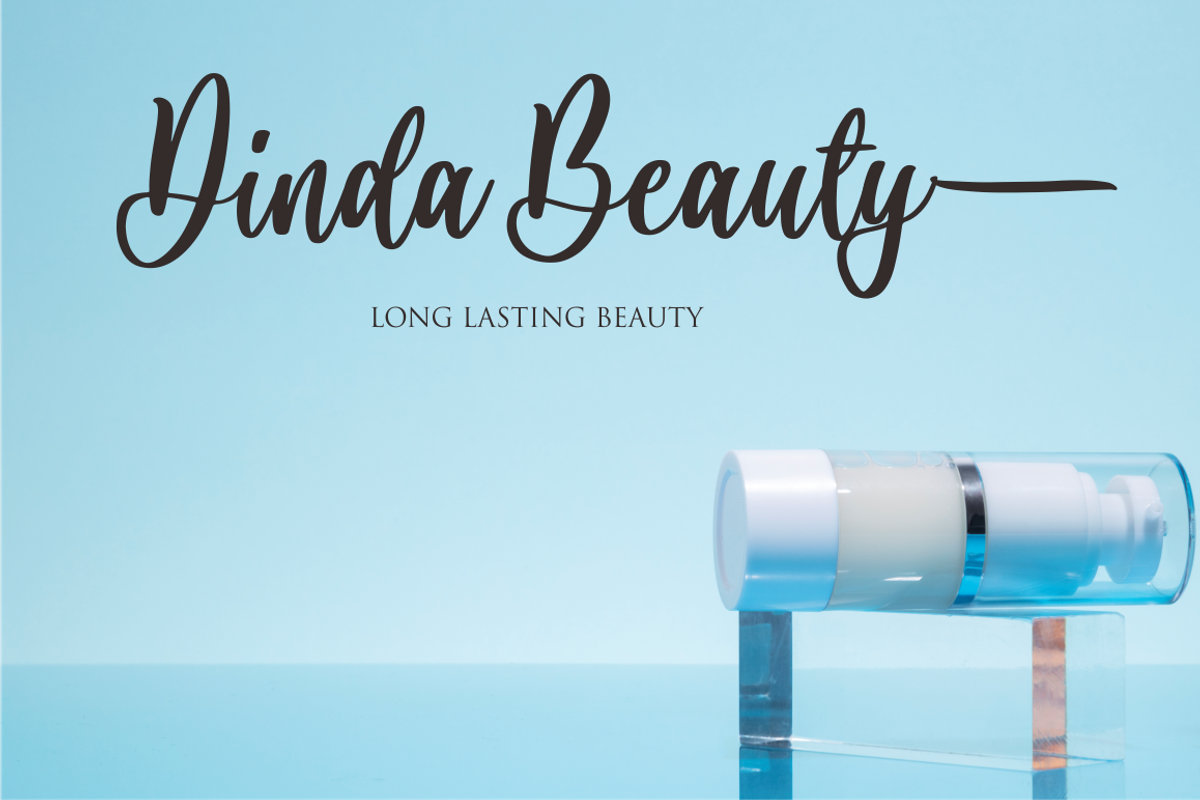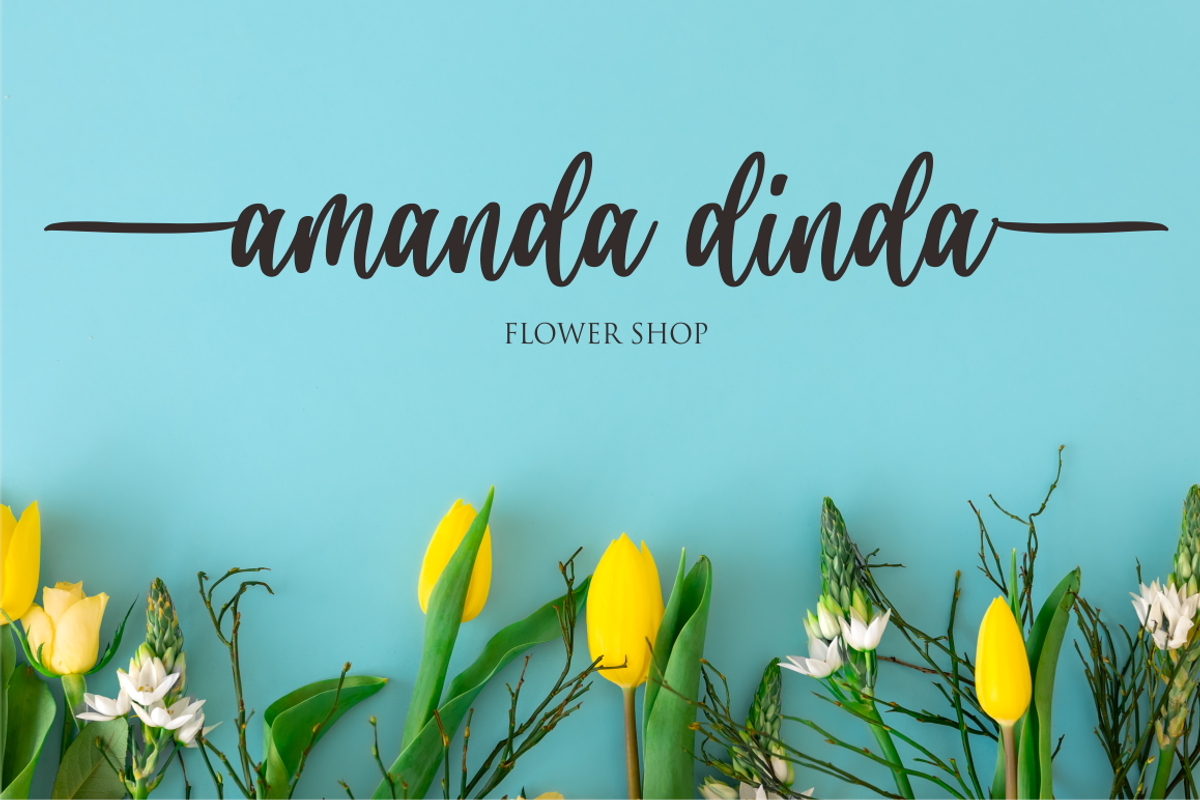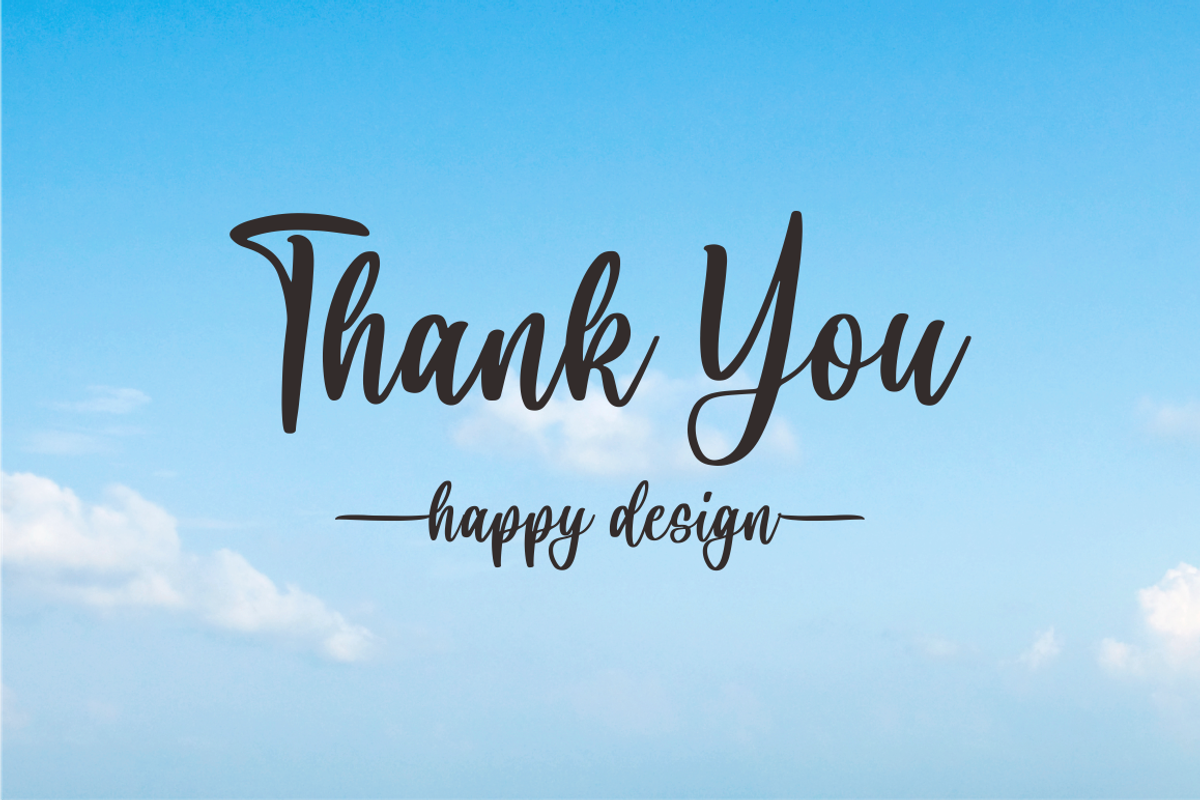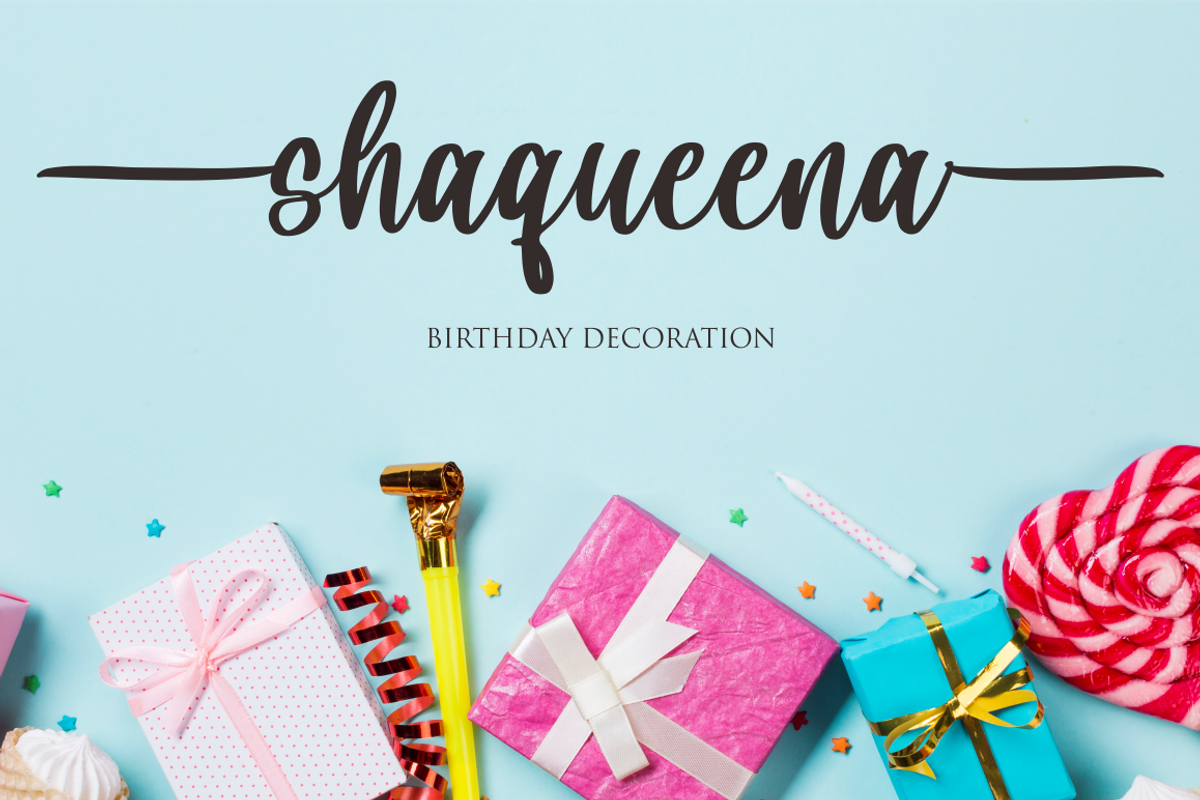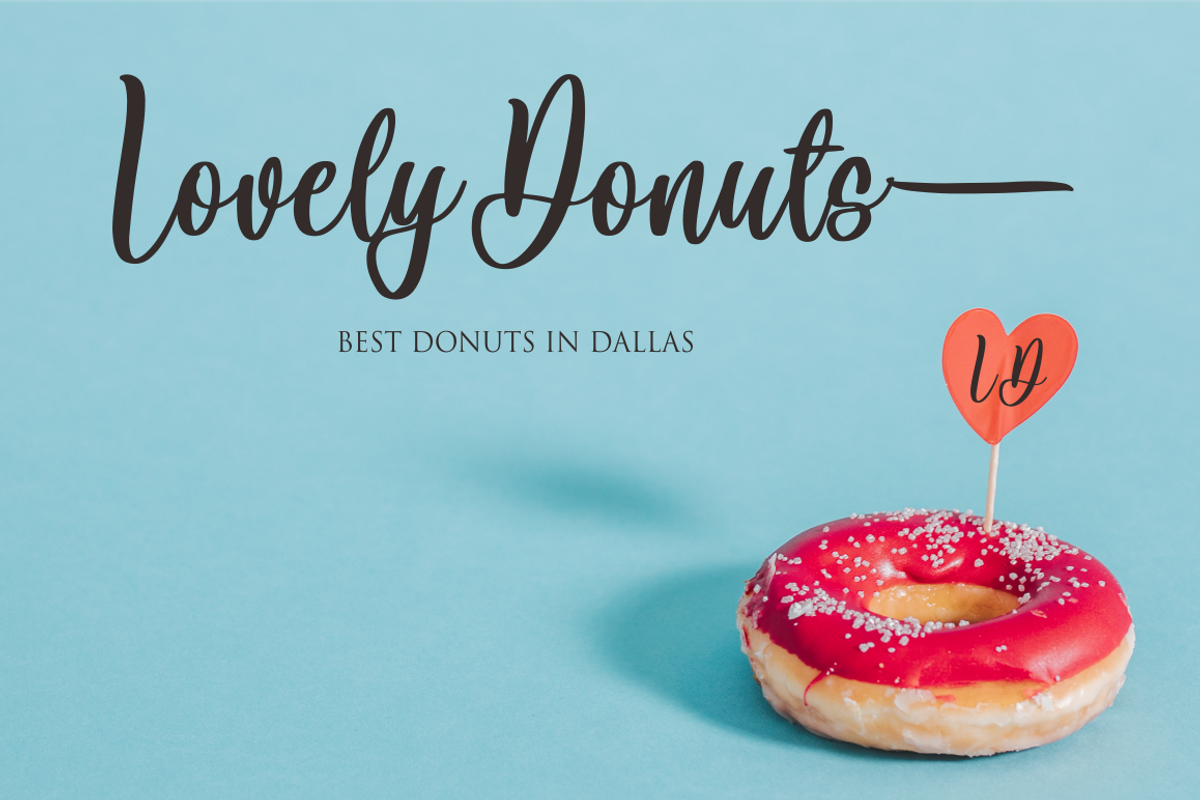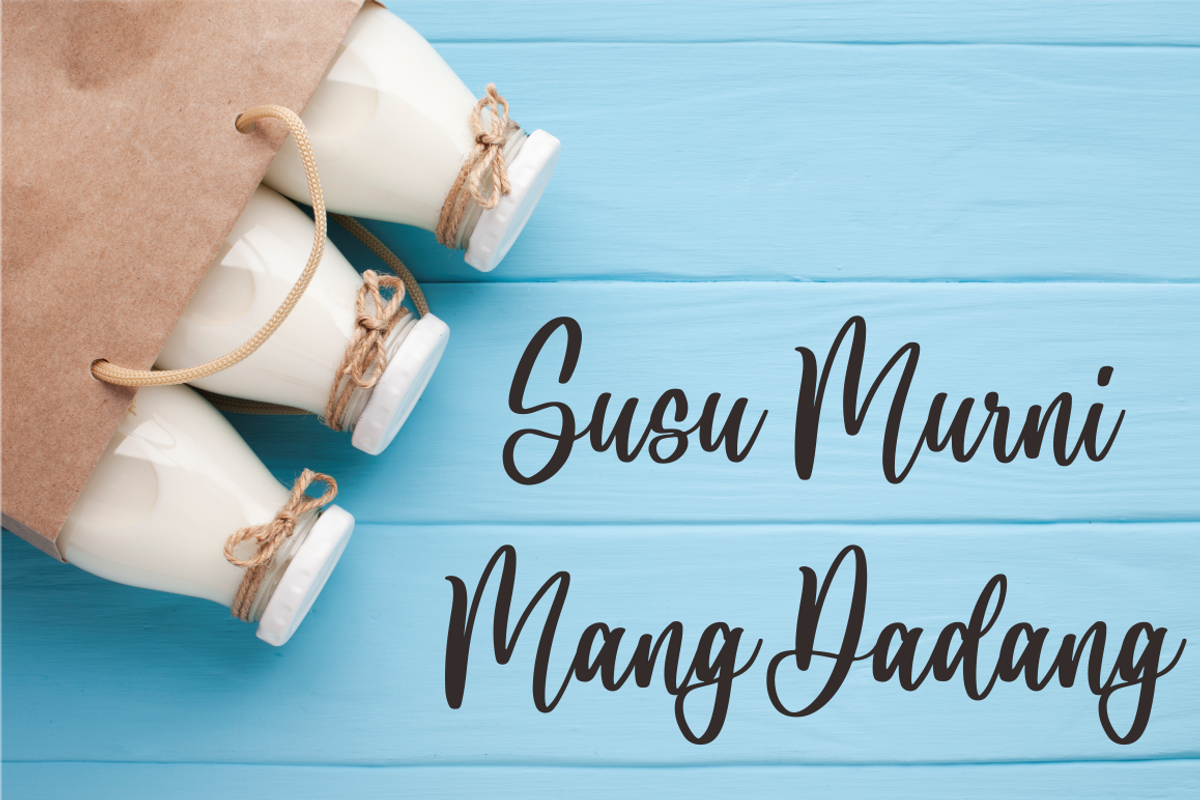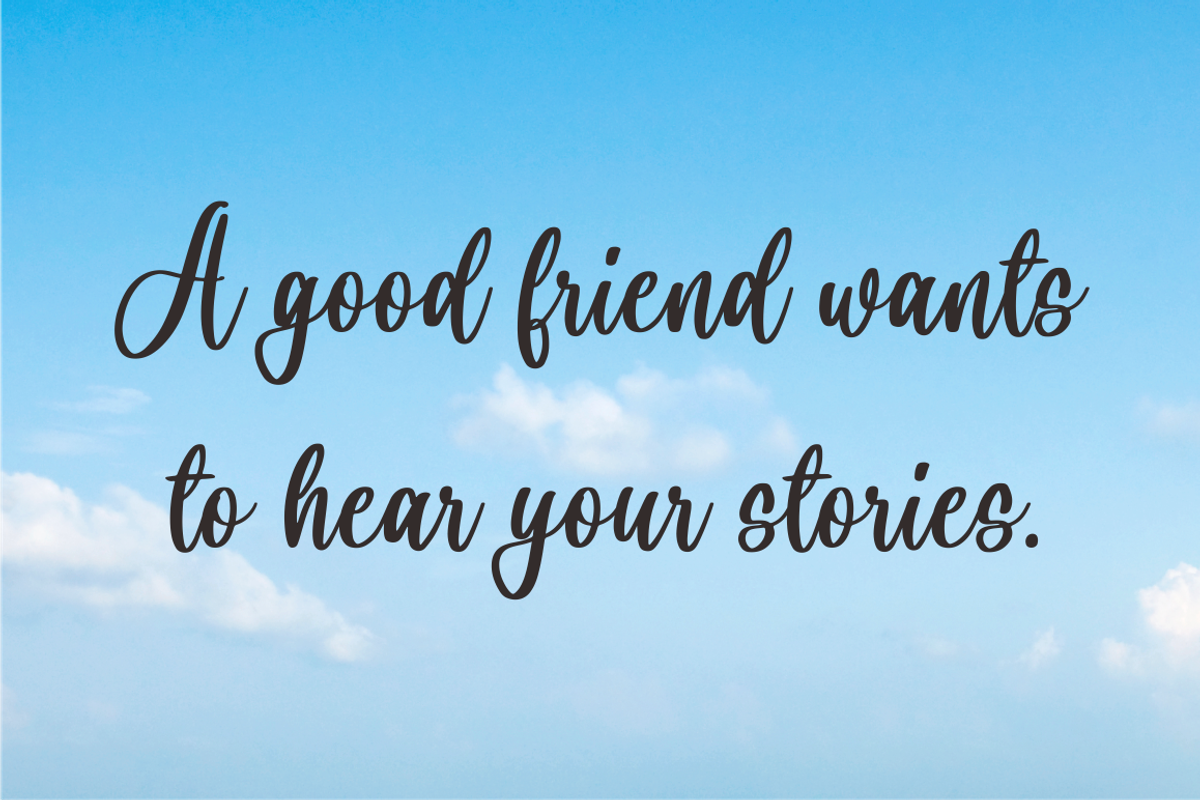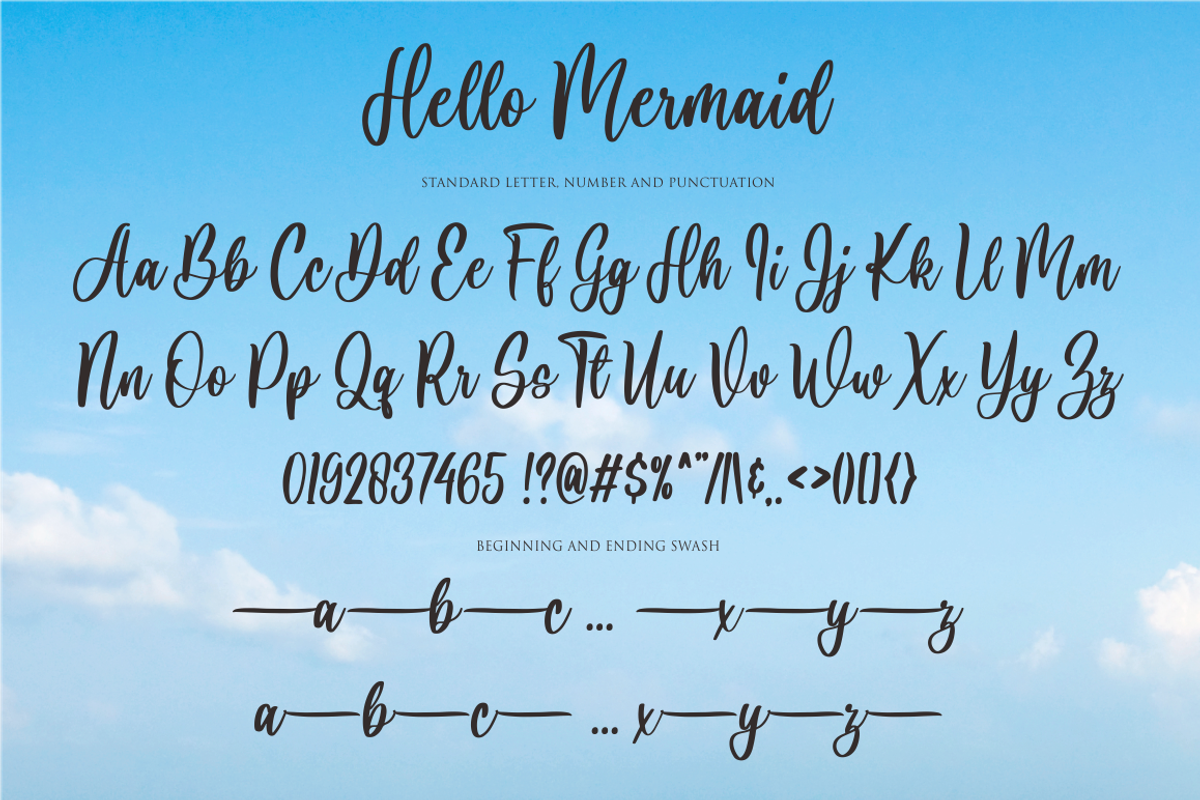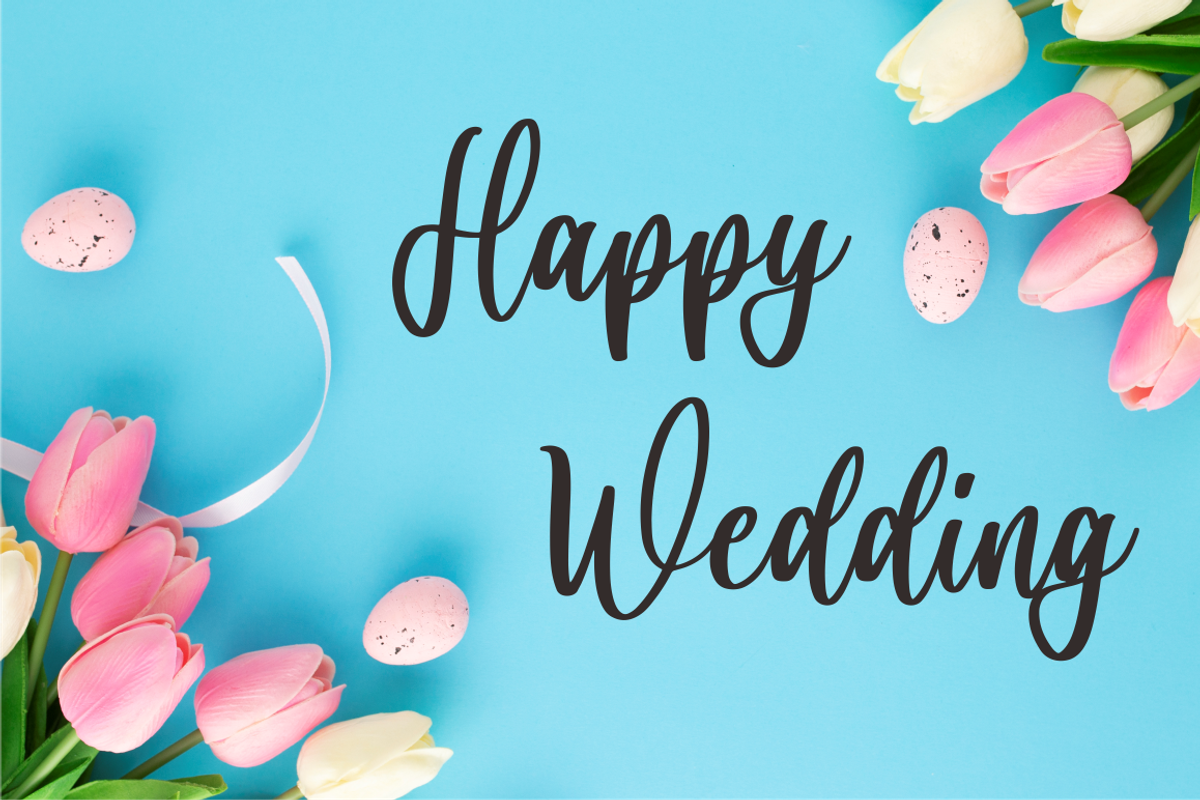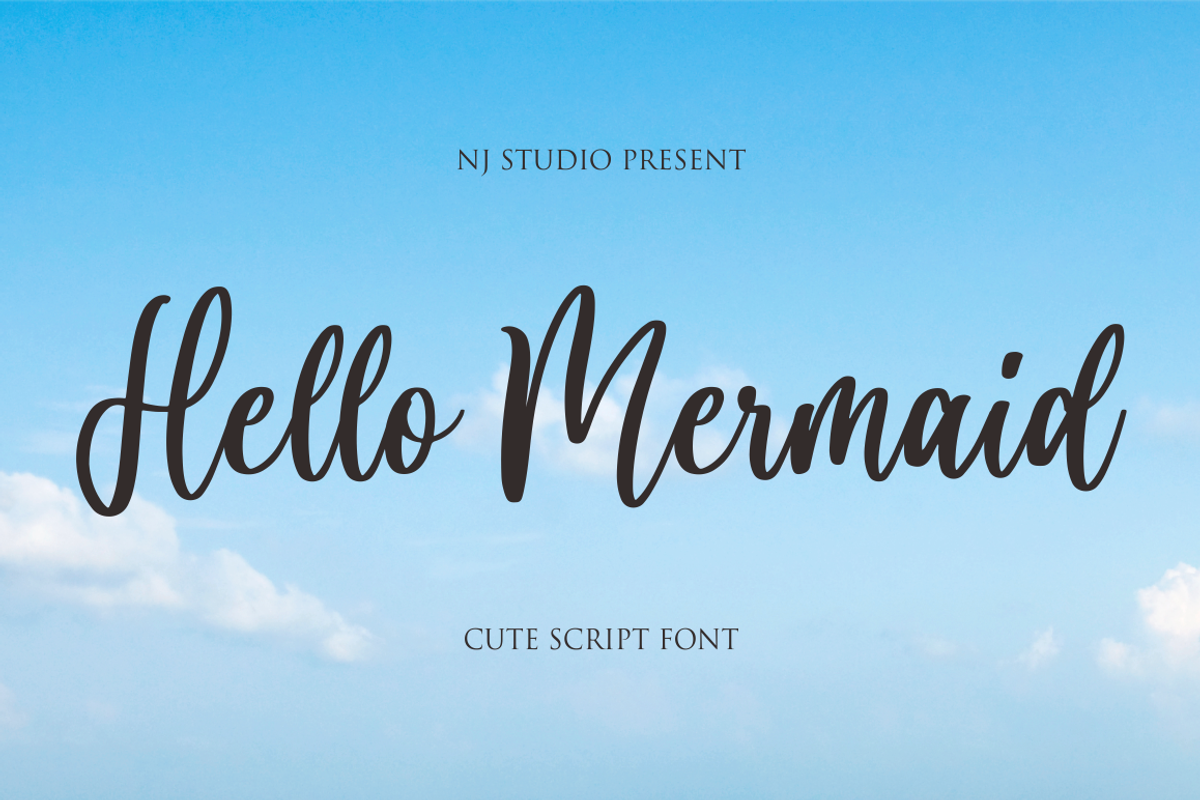
Hello Mermaid
Hello Mermaid a cute script font with beginning and ending swash. It features ligatures characters that will take your projects to the next level!
This font is PUA code which means you can easily access all the glyphs that are full of natural! It also features many special features including glyphs. font designs that are made for various vector designs, printing such as digital wedding blogs, online shops, social media, while printing can be used in the field of product clothing, accessories, bags, pins, logos, business cards, watermarks and many others ...
so it can make your product look natural and attractive, and also Multilingual support!!!